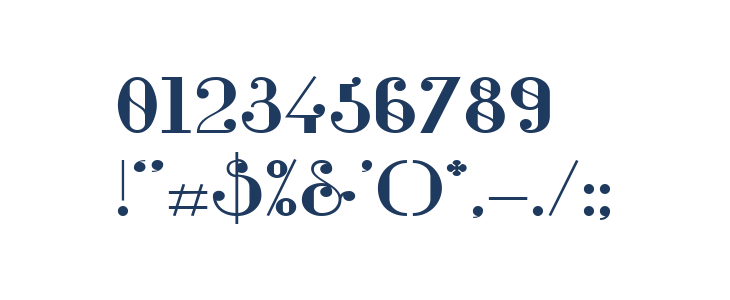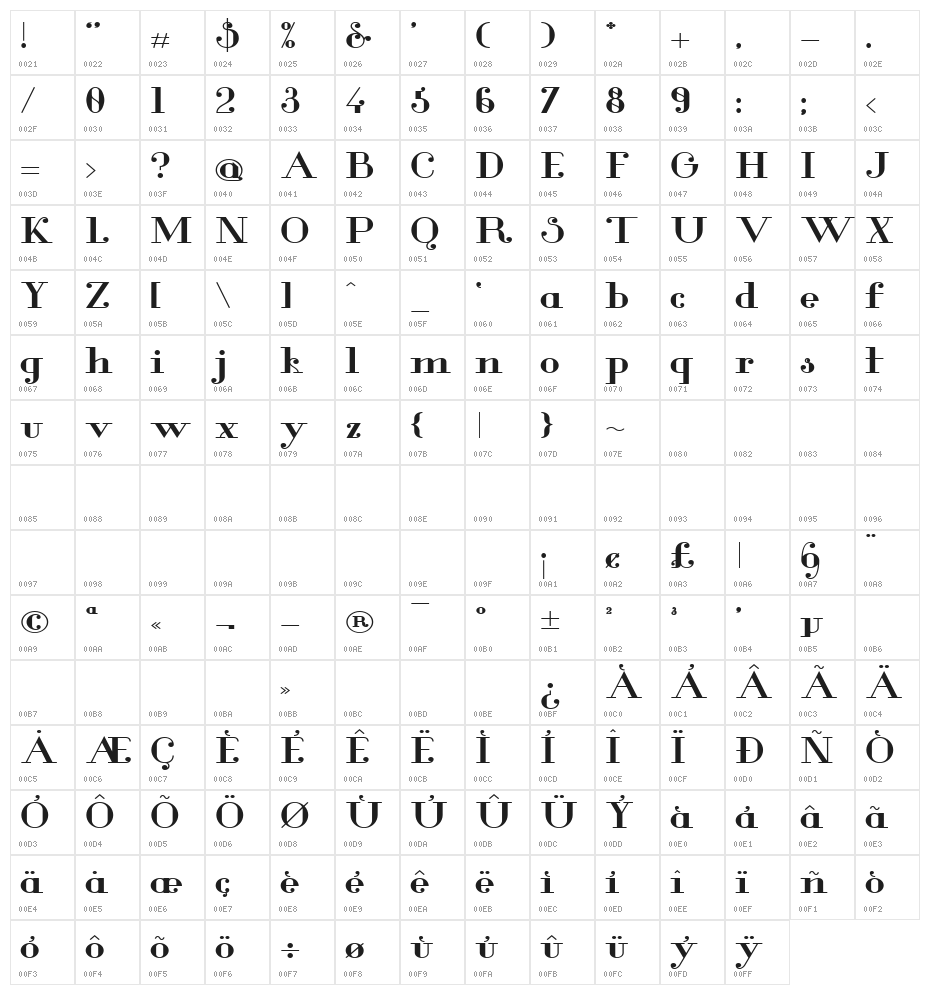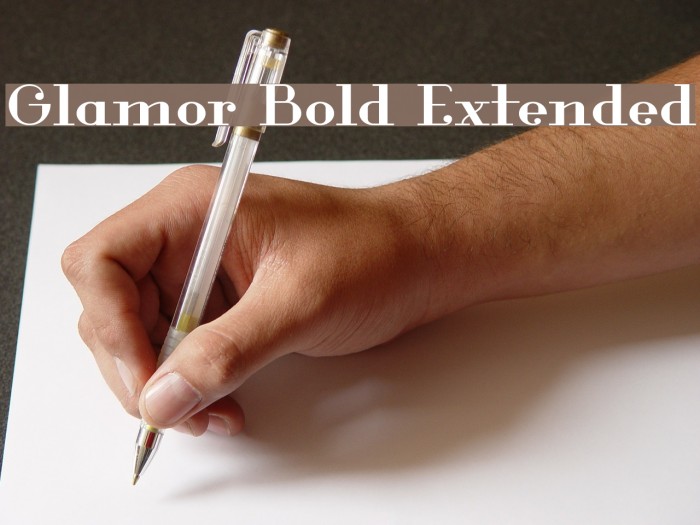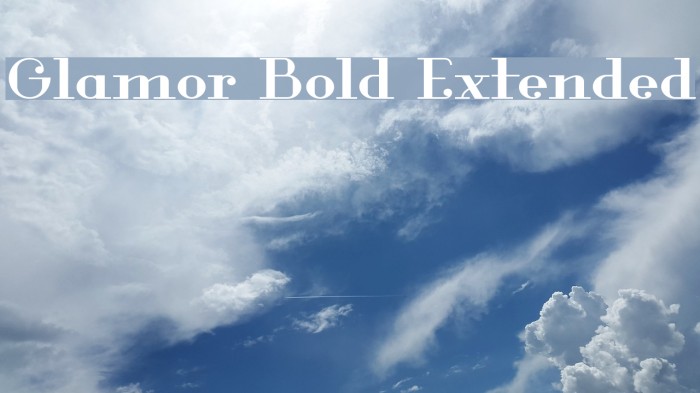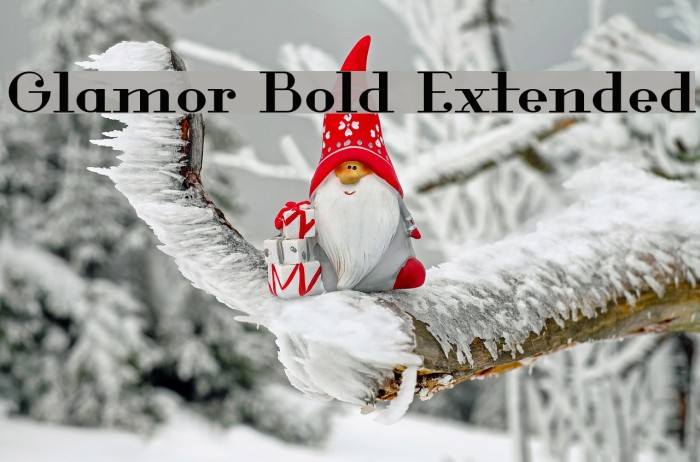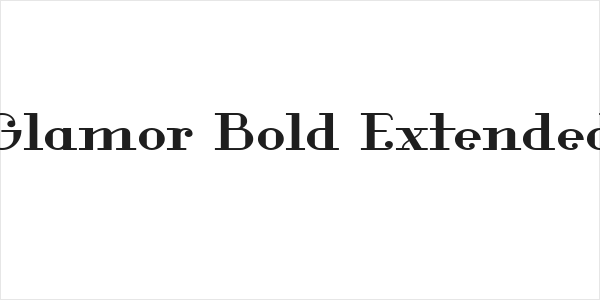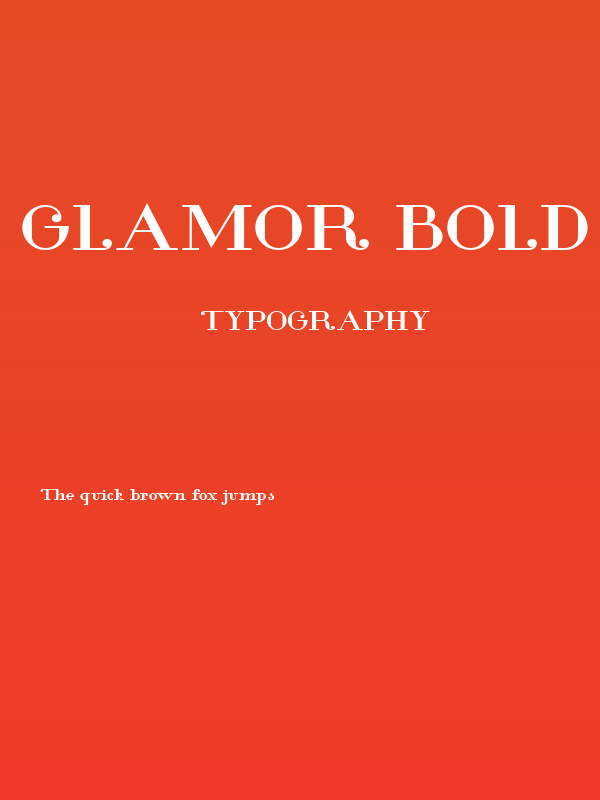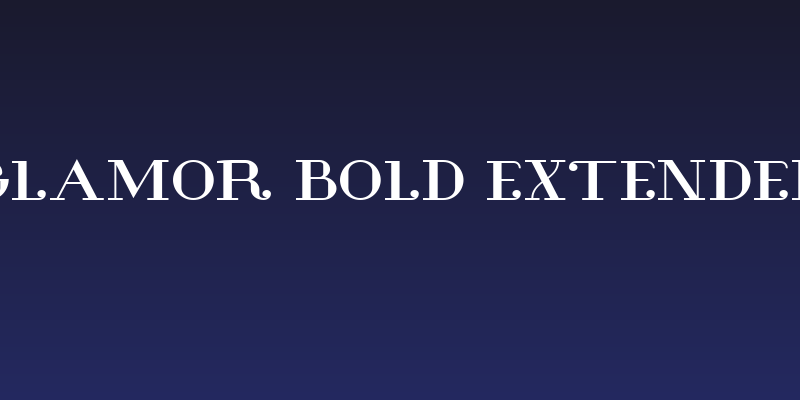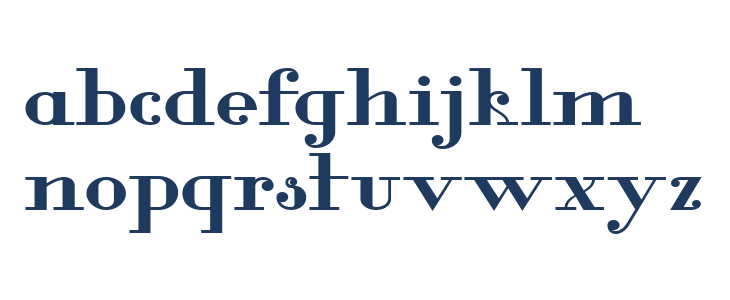
Glamor Bold Extended Font
Glamor Bold Extended Description
This typeface is a bold and extended serif font that exudes elegance and sophistication. It features high contrast between thick and thin strokes, giving it a dramatic and stylish appearance. The serifs are pronounced and add a classic touch to the overall design. The characters are well-spaced, providing a balanced and readable text. The uppercase letters have a strong presence, while the lowercase letters maintain a harmonious flow. The numerals are distinct and clear, making them suitable for various applications. The special characters are thoughtfully designed, complementing the overall aesthetic of the typeface.
| Use Case | Headlines, Logos, Editorial design |
| Proposed Projects | Ideal for luxury branding, editorial design, fashion magazines, and high-end product packaging. |